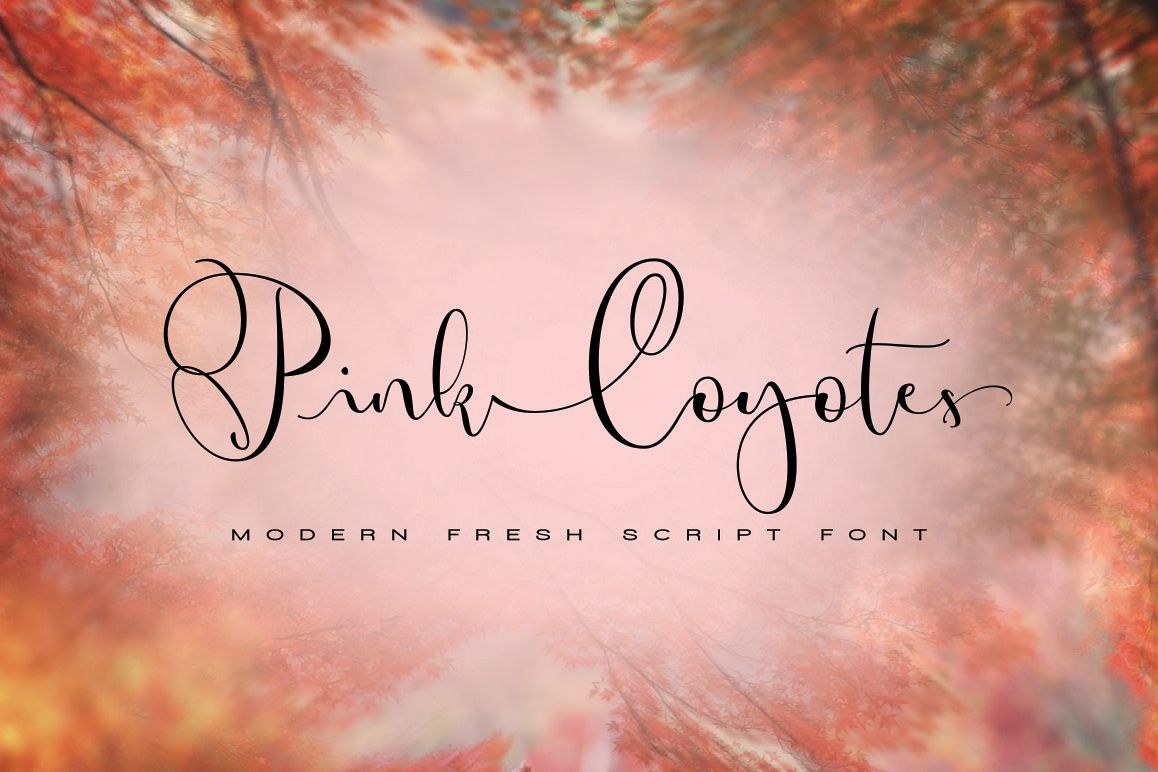
Pink Coyotes Script
INTRODUCING a PINK COYOTES, a hand lettering modern fresh
script font, Pink Coyotes creating the natural font for your designs beyond a
standard font and include Ligatures (letters custom).
to use it for various purpose like wedding invitations, logos, signatures,
t-shirts design, cards, printed quotes, product packagings, headings, blogs,
graffiti, website headline and more. Enjoy this exclusive set and explore your
fantastic design.